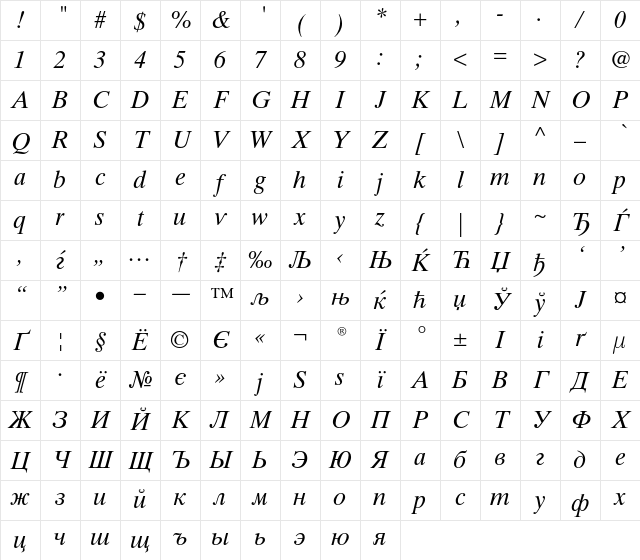
Times Ten Cyrillic Inclined
Style: Inclined
Design Context for Times Ten Cyrillic
Times Ten Cyrillic is a composed and adaptable typeface that performs quietly and consistently across a wide range of design contexts.
Pro Tip: Use Times Ten Cyrillic in both headline and body roles to test its range before committing to a single application.